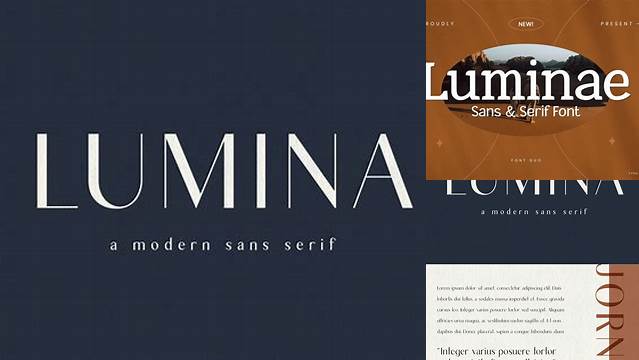
Lumina Sans Serif Font: Free Download & Modern Design
Exploring Lumina: The Allure of a Modern Sans Serif Font
Hey guys, let's dive into the world of typography and talk about a font that's been making waves: Lumina. Specifically, we're zeroing in on the Lumina modern sans serif font and why you might want to snag a free download. In the vast universe of typefaces, sans serifs have a special place. They're known for their clean lines, readability, and contemporary feel. Lumina fits right into this category, offering a fresh perspective with its geometric yet slightly humanist touches. Think about those projects where you need something sleek, sophisticated, and unmistakably modern. Whether you’re designing a brand identity, crafting a website, or laying out a magazine, a font like Lumina can be your secret weapon. It brings an air of professionalism without feeling stuffy, and its versatility means it can adapt to a wide range of applications. We’ll be exploring what makes Lumina stand out, why a free download is such a great opportunity, and how you can best utilize its unique characteristics in your own design endeavors. Get ready to discover a typeface that could very well become your new favorite go-to.
Why Lumina Sans Serif is a Designer's Dream
So, what exactly makes the Lumina sans serif font so appealing to designers, you ask? Well, it’s a combination of factors that hit all the right notes. Firstly, its clean, minimalist aesthetic is incredibly versatile. This means it plays well with other design elements, allowing your content to take center stage without being overshadowed by overly decorative type. The sans serif classification itself signifies simplicity and modernity, stripping away the decorative serifs found on traditional fonts. Lumina takes this a step further with its balanced proportions and clear letterforms. Each character is crafted with precision, ensuring excellent readability even at smaller sizes, which is crucial for web design and body text. Beyond pure aesthetics, the modern sans serif nature of Lumina suggests approachability and clarity. It’s the kind of font that conveys information efficiently and elegantly, making it perfect for everything from corporate branding to user interfaces. Many designers appreciate its ability to lend a touch of sophistication without sacrificing accessibility. It’s a font that speaks volumes about your attention to detail and your commitment to a clean, contemporary visual language. We’re talking about a typeface that doesn't just look good; it works effectively across a multitude of platforms and mediums, solidifying its status as a true designer's dream for any lumina modern sans serif font free download opportunity.
The Design Versatility of Lumina Sans Serif
One of the most significant advantages of the Lumina sans serif font is its sheer versatility, guys. When you download a font, especially a modern sans serif like Lumina, you’re not just getting a typeface; you’re unlocking a tool that can adapt to a surprising array of design needs. Think about it: the clean, uncluttered nature of sans serifs makes them inherently adaptable. Lumina excels here because it strikes a beautiful balance between geometric precision and subtle warmth. This means it’s not limited to just one style or application. Need to design a sleek, minimalist website header? Lumina’s clean lines will shine. Working on a corporate brochure that needs to convey professionalism and clarity? Lumina’s readability is a major plus. How about packaging design that needs to look contemporary and premium? Lumina can deliver that sophisticated edge. Even for more creative projects, like social media graphics or editorial layouts, Lumina provides a solid, stylish foundation. Its versatility also extends to how it pairs with other fonts. You can often pair a sans serif like Lumina with a more decorative serif font for contrast, or use different weights of Lumina itself to create hierarchy within your text. This adaptability is what truly makes a font valuable, and Lumina doesn't disappoint. This flexibility is a huge benefit, especially when you’ve managed to secure a Lumina font free download, allowing you to experiment across various design contexts without limitations. It’s a font that grows with your needs.
Lumina Font: Perfect for Branding and Logos
When it comes to branding, the font you choose is absolutely critical. It’s often the first visual impression a potential customer has of your company. This is where the Lumina modern sans serif font truly shines, guys. Its clean, contemporary, and approachable aesthetic makes it an ideal candidate for logos and overall brand identity. A well-designed logo needs to be memorable, legible, and reflective of the brand's personality. Lumina, with its balanced proportions and modern vibe, ticks all these boxes. It suggests innovation, efficiency, and a forward-thinking approach, which are qualities many businesses want to project. Imagine a startup in the tech industry using Lumina for its logo and website. The modern sans serif style communicates a sense of cutting-edge technology and user-friendliness. Or perhaps a lifestyle brand wanting to convey a sophisticated yet accessible image – Lumina can provide that perfect balance. The sans serif nature ensures that the brand name remains clear and impactful, whether it's scaled down for a favicon or blown up on a billboard. Furthermore, if you’ve managed to get a Lumina font free download, it offers a cost-effective way for new businesses to establish a strong visual identity right from the start. You can confidently use Lumina across all your branding materials – business cards, letterheads, social media profiles, and marketing collateral – ensuring a consistent and professional look. It’s about creating a visual language that resonates with your target audience, and Lumina provides a solid, stylish foundation for that very purpose.
Enhancing Web Design with Lumina Sans Serif
Web design is all about creating a seamless and engaging user experience, and typography plays a massive role in achieving that. The Lumina sans serif font is a fantastic choice for enhancing your web design projects, thanks to its inherent readability and modern appeal. When users visit a website, they want information presented clearly and attractively. Lumina, as a modern sans serif, delivers exactly that. Its clean letterforms and excellent spacing ensure that text is easy to read, whether it's in headings, navigation menus, or body paragraphs. This is crucial for keeping visitors engaged and reducing bounce rates. A font that’s difficult to read can be a major deterrent, no matter how beautiful the rest of the design is. Lumina avoids this pitfall entirely. Moreover, its sans serif style naturally lends itself to the clean, minimalist aesthetic often favored in modern web design. It can help create a sense of order, professionalism, and sophistication on your site. Consider using Lumina for your website's main typography to establish a consistent visual voice. You might use a bolder weight for headings to grab attention and a lighter weight for body text for comfortable reading. The availability of a Lumina font free download makes it even more appealing for web developers and designers, allowing them to implement high-quality typography without breaking the bank. This means you can achieve a polished, professional online presence that looks great on all devices, from desktops to smartphones. It’s about making your digital presence look sharp and inviting, and Lumina is a stellar ally in that quest.
Typography Trends and Lumina's Place
Hey design enthusiasts! Let's chat about where the Lumina modern sans serif font fits into the ever-evolving landscape of typography trends. Right now, we’re seeing a strong emphasis on clarity, minimalism, and authenticity in design. Fonts that are clean, legible, and possess a unique personality are highly sought after. Lumina nails this. Its modern sans serif characteristics align perfectly with the current wave of design that prioritizes functionality and subtle sophistication. Think about the rise of brutalism, minimalism, and even neo-brutalism in web and graphic design – many of these styles rely heavily on bold, unadorned typography. Lumina can fit into these aesthetics, offering a slightly more refined or humanist touch compared to purely geometric sans serifs. Furthermore, the trend towards variable fonts, which allow for a range of weights and styles within a single file, is also gaining traction. While Lumina might not be a variable font in its free iteration, its potential for multiple weights or styles (if offered) taps into the desire for typographic flexibility. The key takeaway is that Lumina isn't just a trendy font; it's a sans serif that offers timeless qualities. Its clean design ensures it won’t feel dated quickly, unlike some overly stylized fonts. So, whether you’re working on a project that follows the latest modern sans serif trends or aiming for a more enduring aesthetic, Lumina provides a reliable and stylish option. Grabbing a Lumina font free download means you're equipping yourself with a typeface that’s both current and classic.
Exploring Different Weights and Styles of Lumina
While the initial appeal of the Lumina modern sans serif font might be its core design, it’s worth exploring if there are variations in weights and styles available, especially when considering a free download. Many font families offer a spectrum from Light or Thin, through Regular and Medium, to Bold and Black. Each weight serves a different purpose in design hierarchy and emphasis. For instance, a Light weight of Lumina could be perfect for elegant, understated captions or longer blocks of text where you want a delicate touch. The Regular or Medium weights are typically your workhorses, providing excellent readability for body copy and general text. Then, you have the Bold or Black weights, which are fantastic for making impactful statements, headlines, or calls to action. If Lumina comes in various styles, such as italics, you gain even more expressive potential. Italics can be used for emphasis, quotes, or to add a sense of movement and dynamism to your layouts. The true power of a font family lies in its ability to offer these different options, allowing designers to create rich and varied typographic compositions using a single, cohesive typeface. When you find that Lumina font free download, check carefully what weights or styles are included. Even if it’s just the Regular weight, it’s a great starting point. If you’re lucky and find a version with multiple weights, you've struck gold! This typographic toolkit is essential for crafting professional designs that guide the reader’s eye effectively. It’s all about leveraging the nuances of each modern sans serif variation to communicate your message with clarity and style.